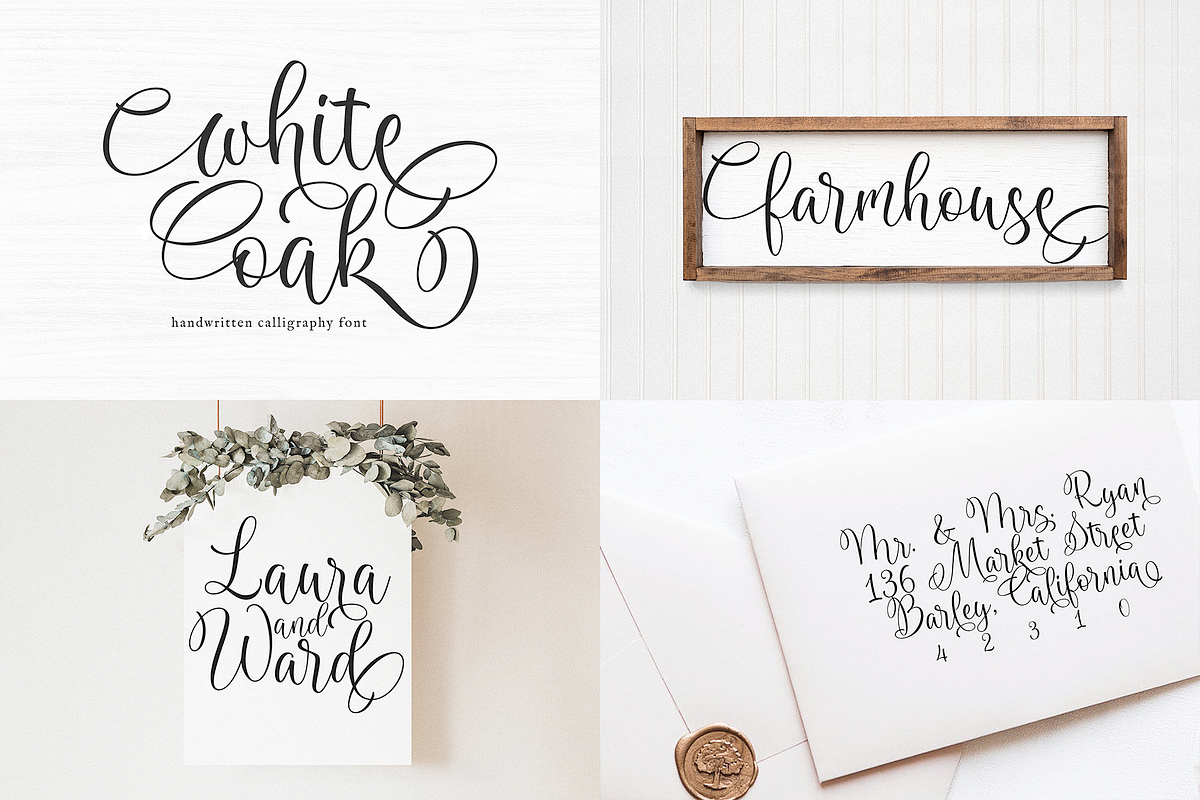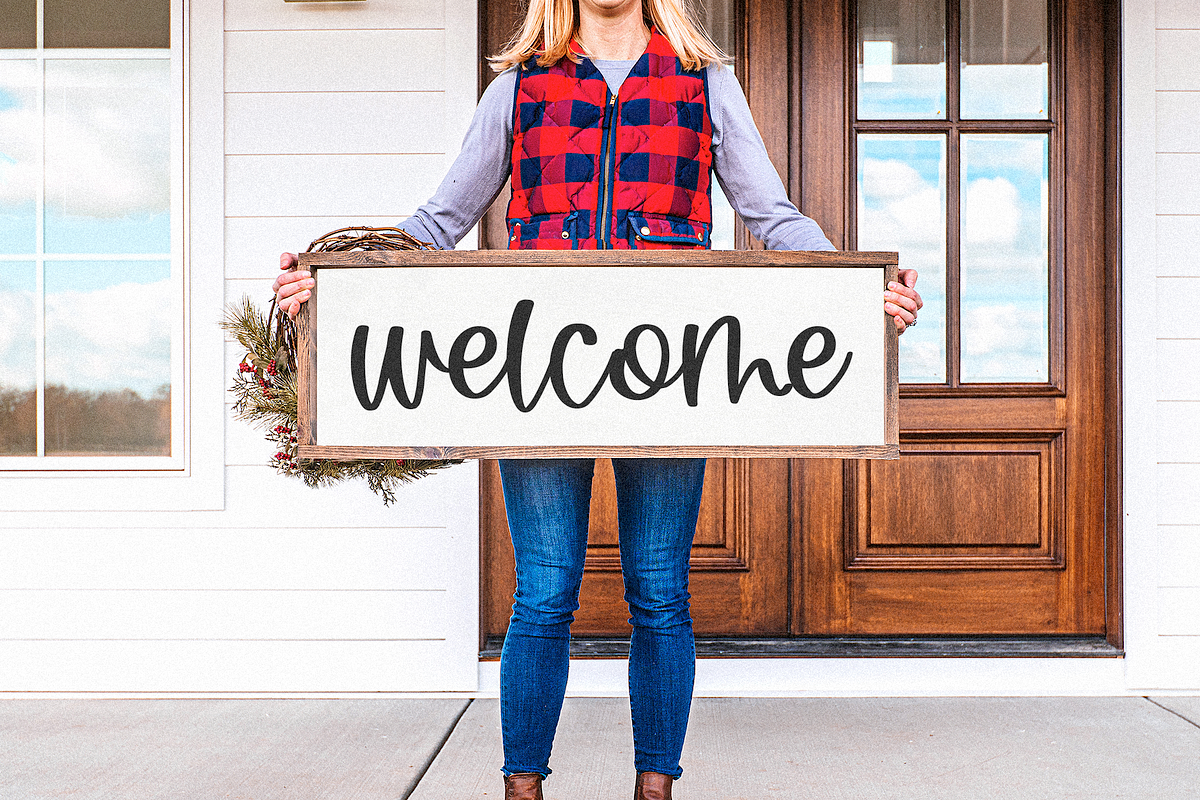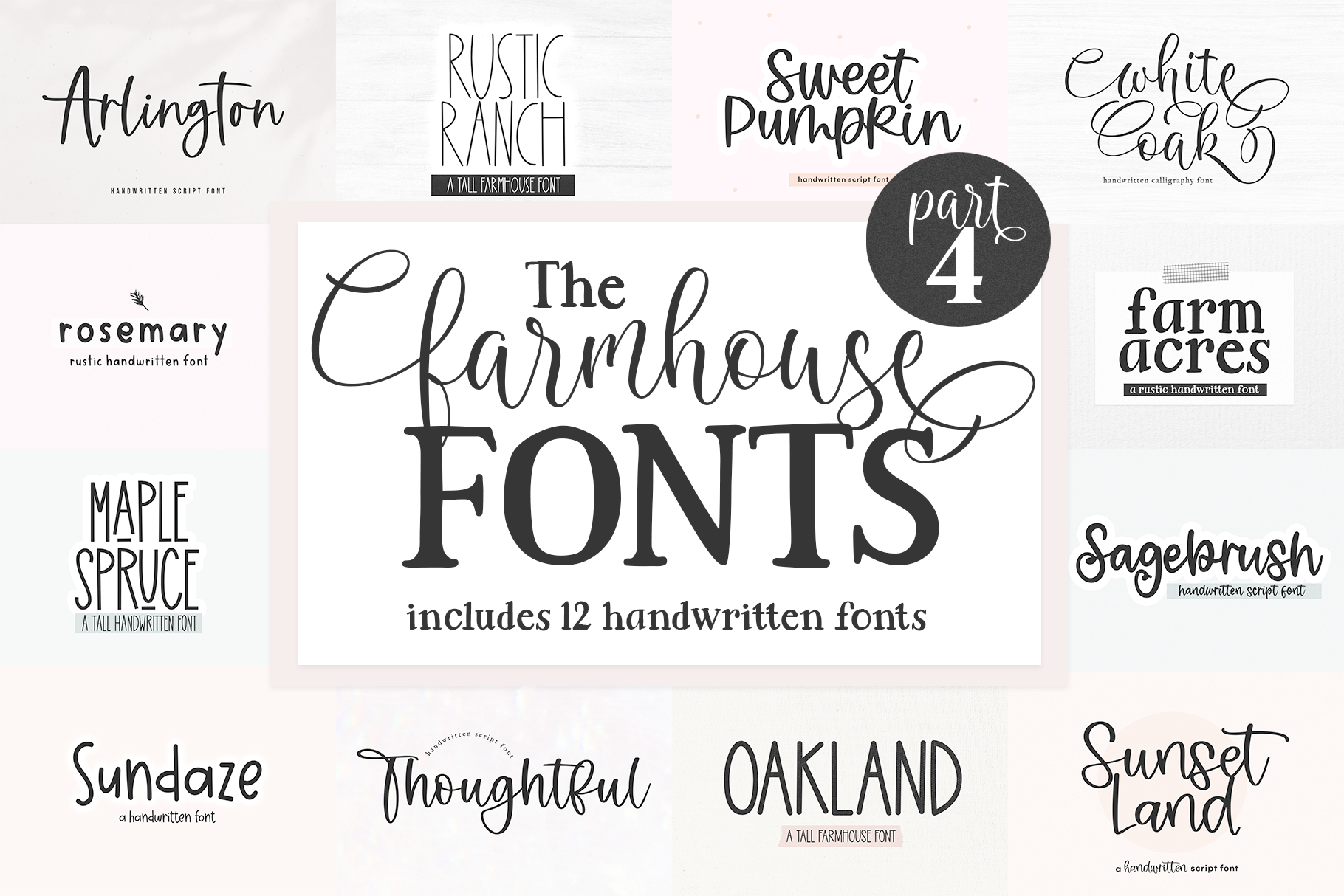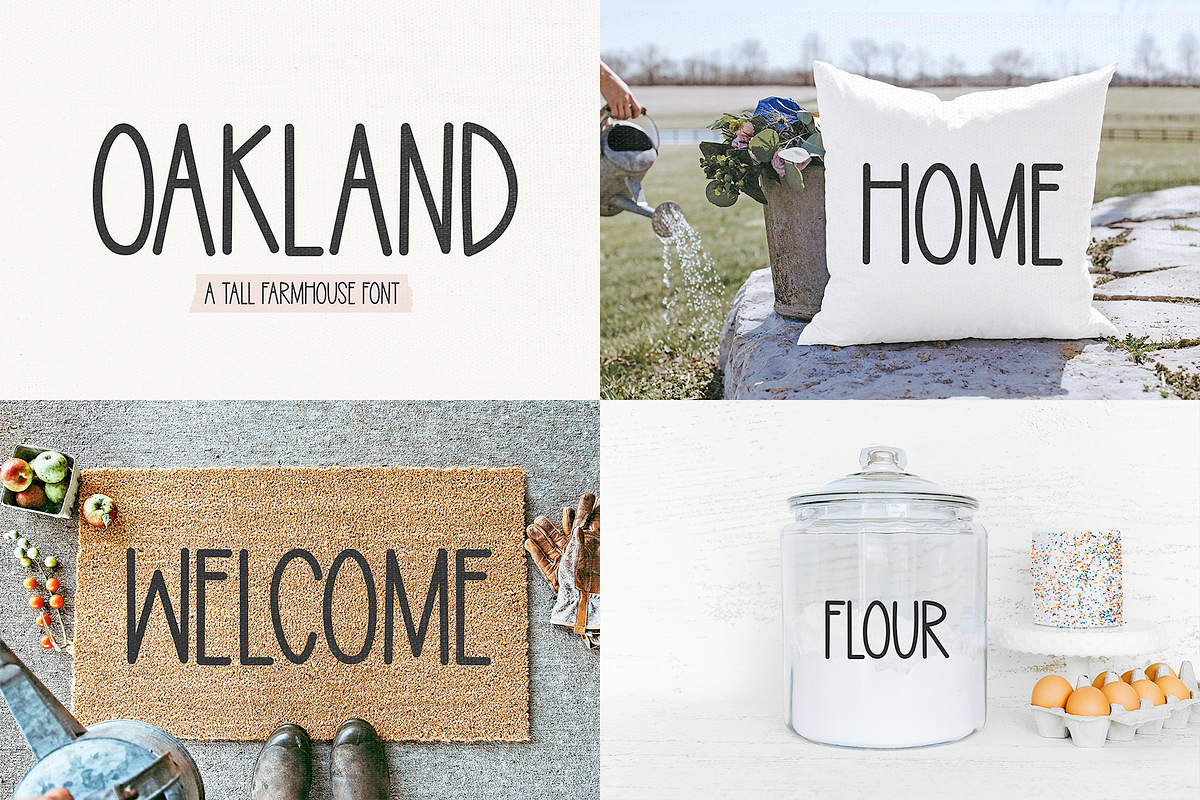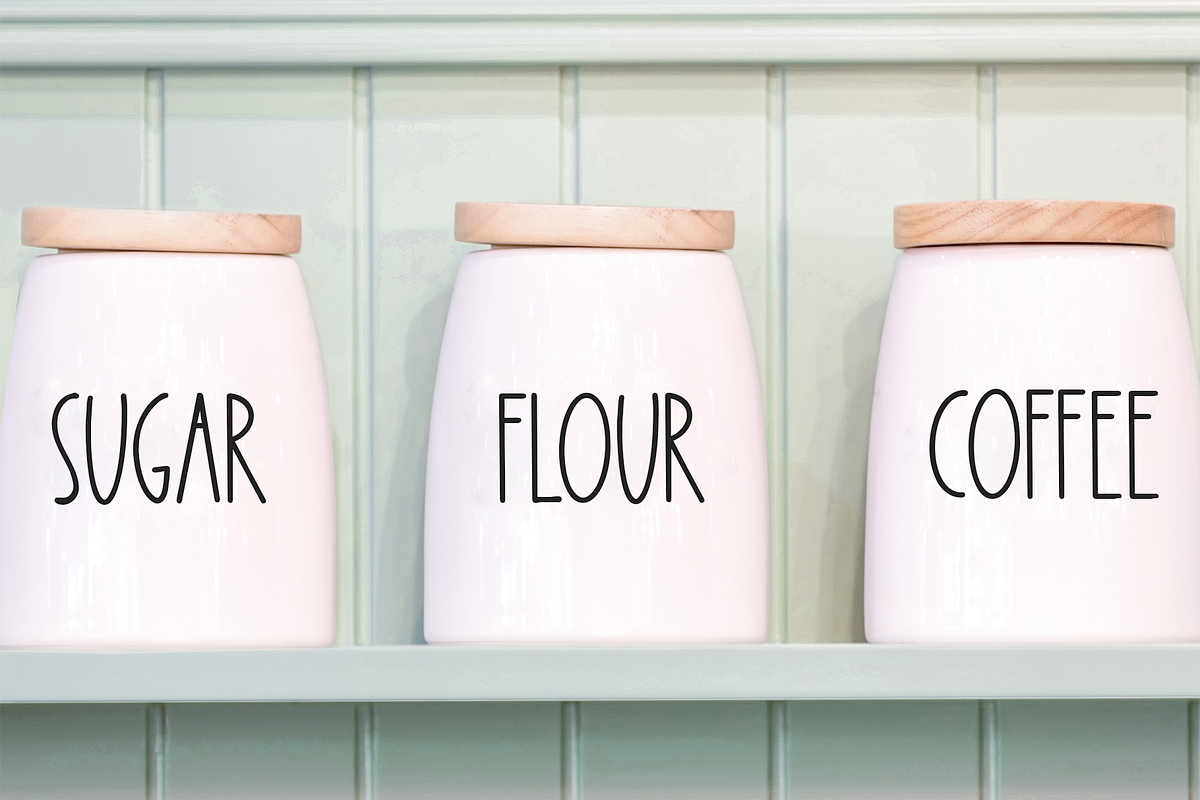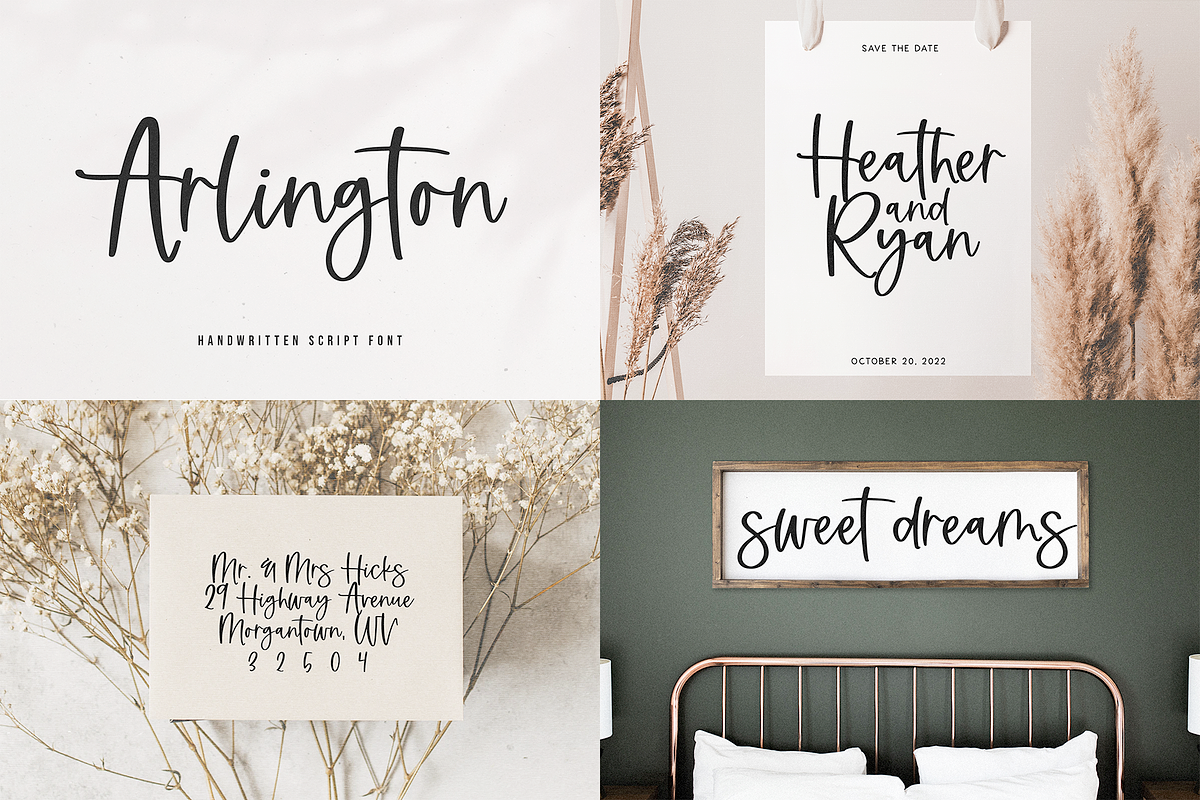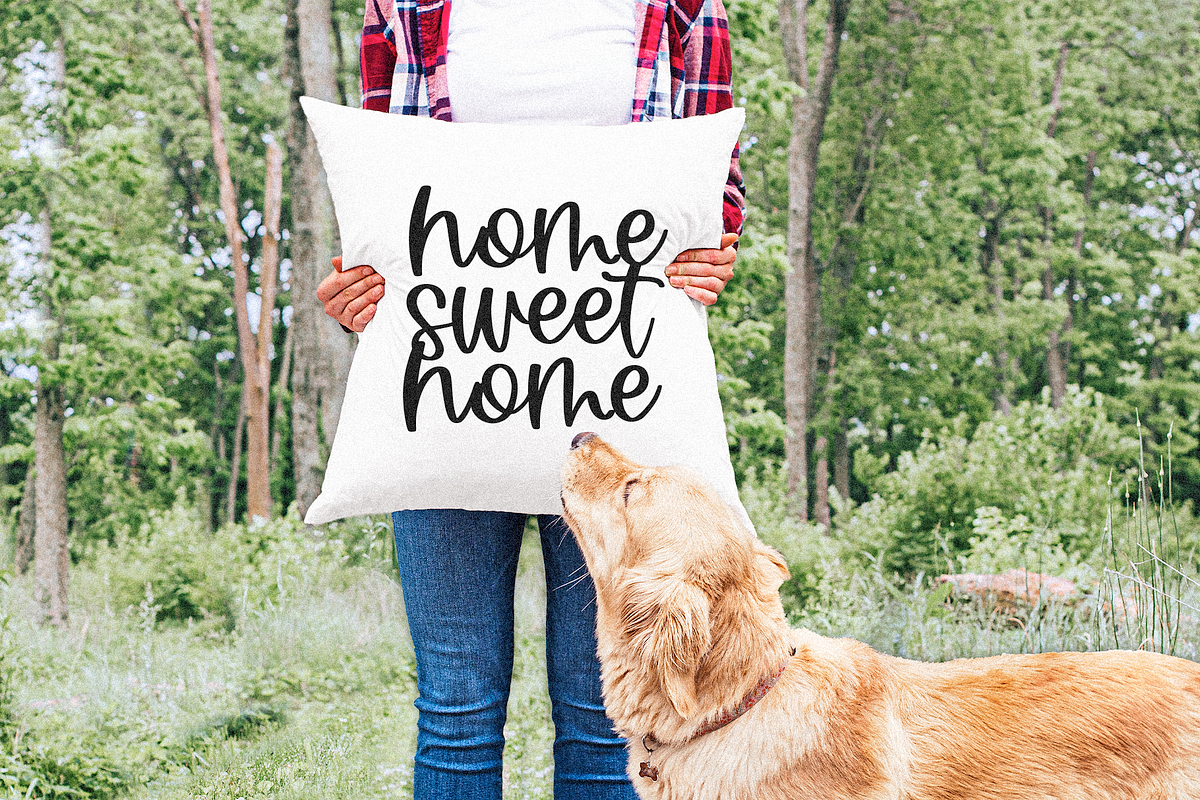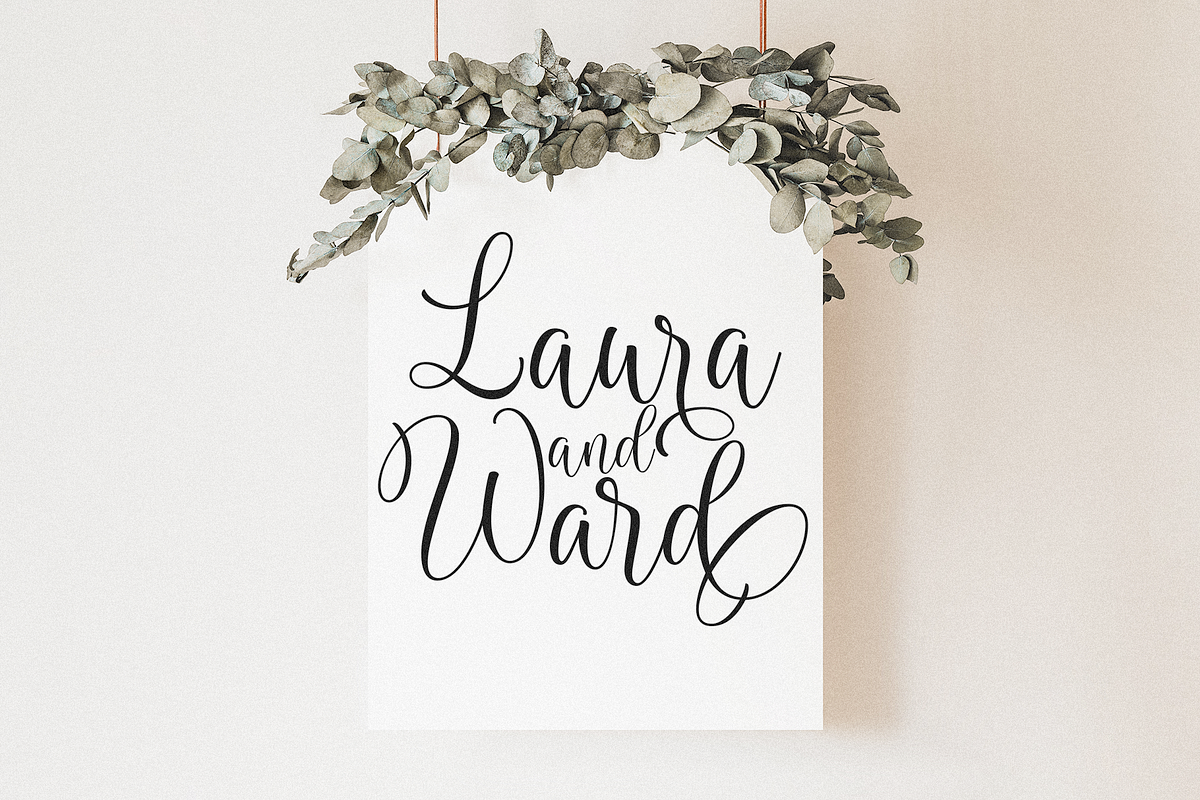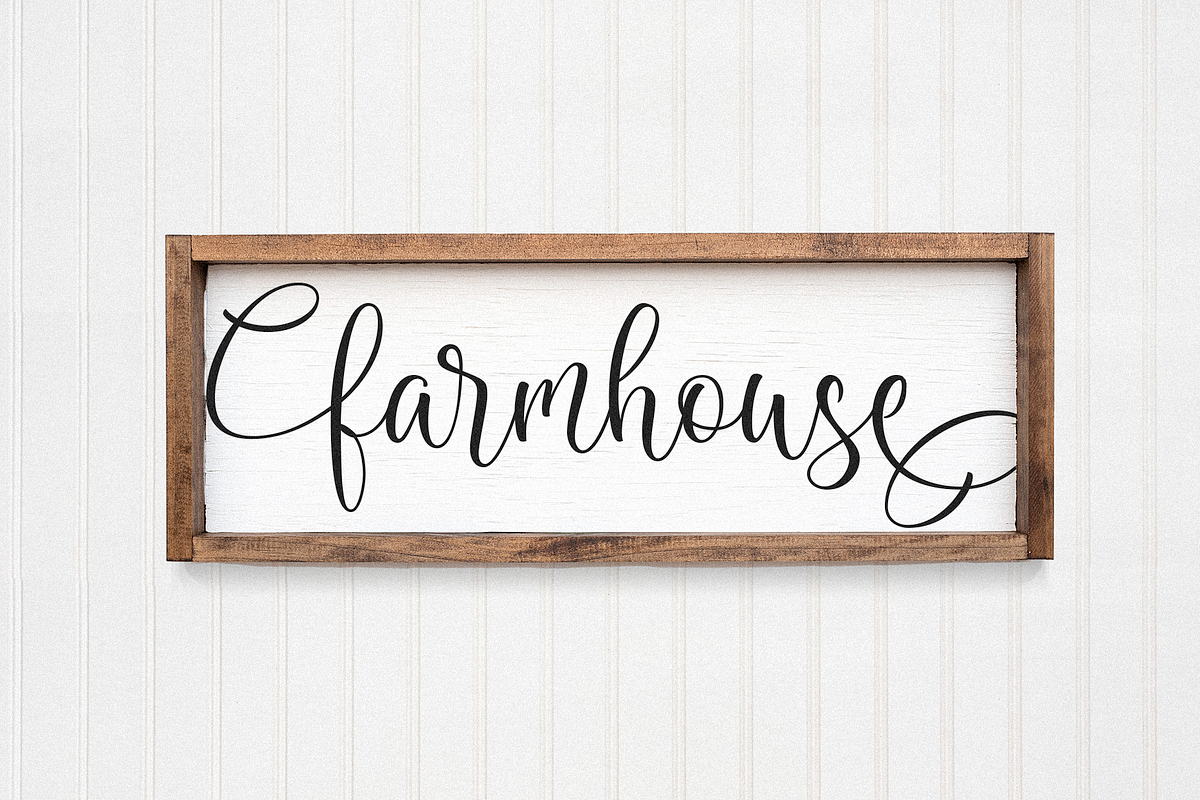
Farmhouse Font Bundle | Part 4
HANDWRITTEN FONT BUNDLE - FARMHOUSE STYLE - VOLUME 4
This bundle includes a handpicked selection of fonts, perfect for your farmhouse and country designs! Includes NEW fonts!
Fonts Included
- Arlington
- Rosemary
- Farm Acres
- Sweet Pumpkin
- Sunset Land
- White Oak
- Rustic Ranch
- Maple Spruce
- Sundaze
- Thoughtful
- Oakland
- Sagebrush
These fonts are perfect for all of your farmhouse designs, svg files, pantry labels, shirts, stickers, logos, signs and more!